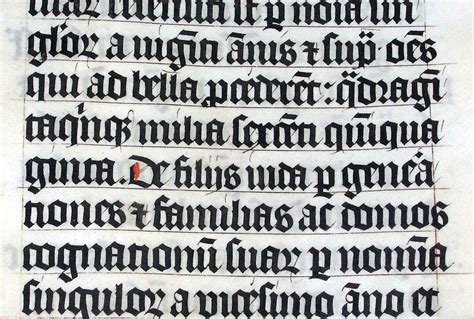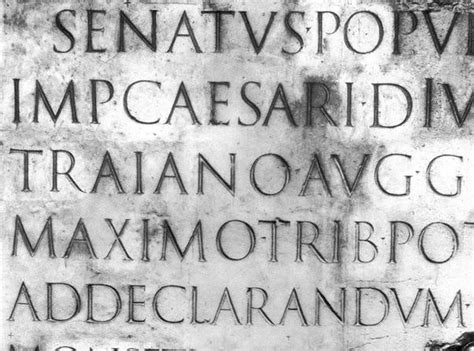
Download Latin Script Font - Jd latin and cyrillic the font is super versatile and suitable for any project. Most uses on fonts in use have text based on the latin alphabet.
Bitocra is a small, clear bitmap font especially for viewing a lot of lines of code or other text at once. Most uses on fonts in use have text based on the latin alphabet. Home script cochocib script latin pro font.
Wide latin has been much used and not a little abused as well. Most uses on fonts in use have text based on the latin alphabet.
Wide latin has been much used and not a little abused as well. This tag is currently used only when latin characters appear in multiscript.
Script latin accents euro various fancy techno calligraphy sans serif decorative distorted modern handwritten. ❮ ❯ introducing cochocib font. It is designed by saffatin co, this is a premium font, are sold on creativemarket, but it. Fonts are found and given by peter macko. Fontinfo > fonts by scripts > latin. This is derived from a form of the cumaean greek version of the greek. With the help of the castro script font, you can beautifully design text in english, in latin characters and letters. Free download astrum script latin for macos, windows, sketch, figma, photoshop and web site. Script typefaces are based upon the varied and often fluid stroke created by handwriting, pretty much like the cursive fonts just typically more elegant. Home script cochocib script latin pro font. Unicode fonts for ancient scripts. Every font is free to download! Custom type family designed for bundesliga and dfl.
Custom type family designed for bundesliga and dfl. Fontinfo > fonts by scripts > latin. And one more thing, this font fully supports cyrillic!
Bitocra is a small, clear bitmap font especially for viewing a lot of lines of code or other text at once. Latin script (free fonts) latin script (handwritten fonts) turkish fonts at fontlibrary.
Introducing my cochocib script, with a soft style and has an elegant nuances, classy and natural. Home script cochocib script latin pro font. File size 0.11mb | handwritten,script,cochocib script latin pro,sarwo edi,sarwo edi. Latin script (free fonts) latin script (handwritten fonts) turkish fonts at fontlibrary. Is there any default font for latin script in the.net framework or windows in general (fontfamily.genericsansserif maybe?) or at least something that tells me if a font can be used for. Custom type family designed for bundesliga and dfl. Jd latin and cyrillic the font is super versatile and suitable for any project. Safari silhouette font | free download. ❮ ❯ introducing cochocib font. Script is a product of micrologic software, inc. Latin script (free fonts) latin script (handwritten fonts) turkish fonts at fontlibrary. ✓ click to find the best 107 free fonts in the latin style. It is designed by saffatin co, this is a premium font, are sold on creativemarket, but it.
Safari silhouette font | free download. Archive of freely downloadable fonts.
Introducing my cochocib script, with a soft style and has an elegant nuances, classy and natural. Most uses on fonts in use have text based on the latin alphabet.
This tag is currently used only when latin characters appear in multiscript. With the help of the castro script font, you can beautifully design text in english, in latin characters and letters.
Script latin accents euro various fancy techno calligraphy sans serif decorative distorted modern handwritten. And one more thing, this font fully supports cyrillic!
Examples of fonts in use tagged with latin (script). Jd latin and cyrillic the font is super versatile and suitable for any project.
Fontinfo > fonts by scripts > latin. Jd latin and cyrillic the font is super versatile and suitable for any project.